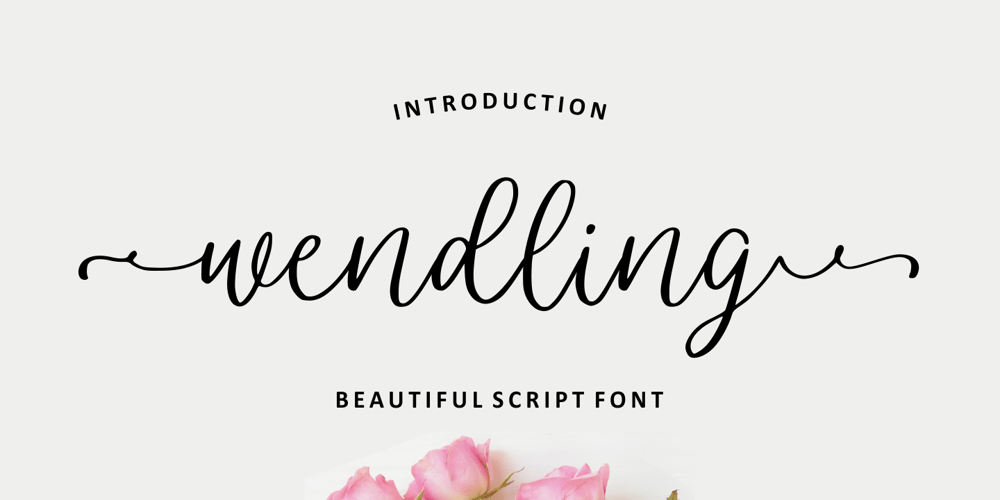
Wendling Font Family was designed by Good Java and published by Good Java Studio. Wendling contains 1 styles and family package options. Wendling – with Sweet Swashes is romantic script font make with many swashes in start and ending character. Make a beautiful style heart with swash. This font includes full set of swash heart lowercase letters, numerals, and punctuation. Also it includes: – short lowercase beginning and ending swashes – lowercase ending heart swashes, which serve to connect two words or letters. This is so perfect for invitations, monograms, wedding, fashion, branding, label. or logotype.